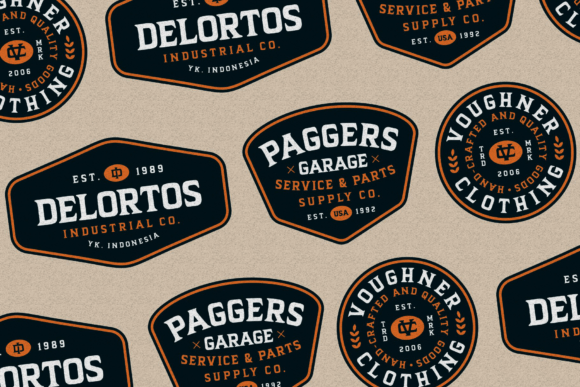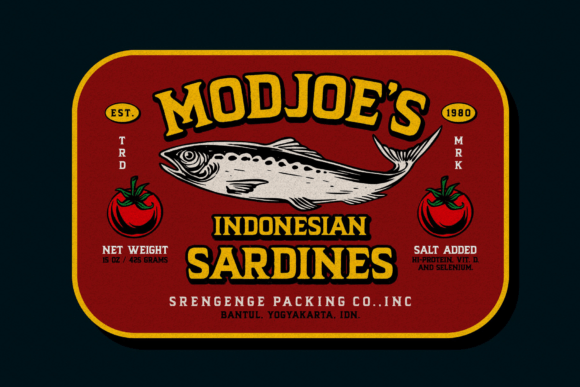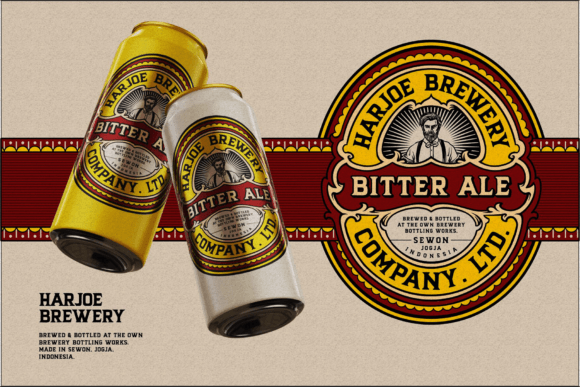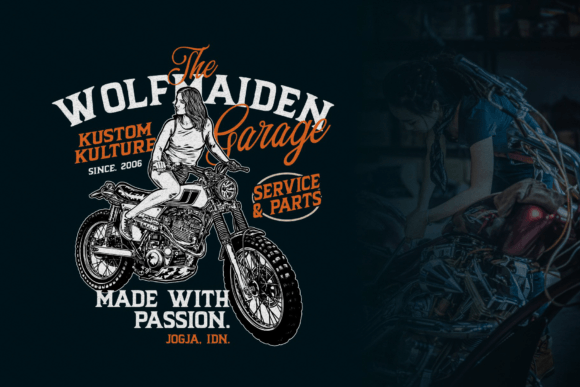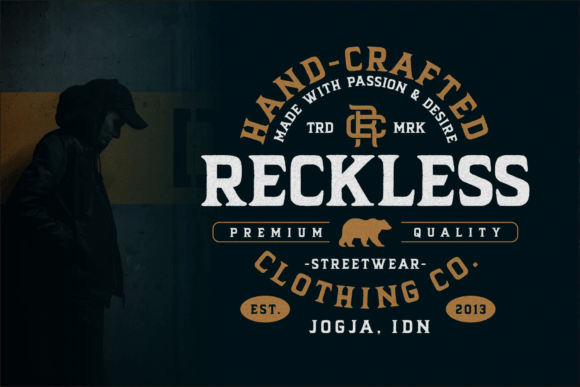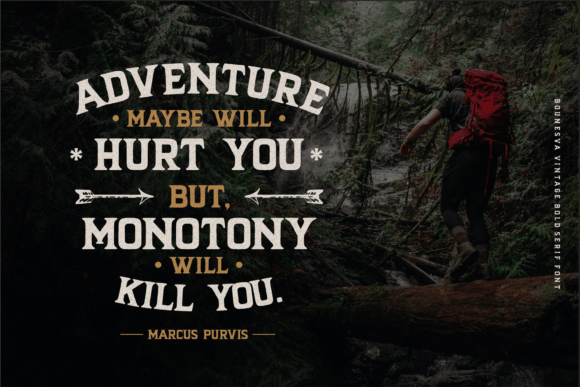
Get Ready to Rev Up Your Designs with the Bounesva Font
You know that feeling when a new font just clicks with your creative vision? For designers and makers, finding the perfect font can be the spark that sets a project ablaze. Whether you’re crafting a bold Instagram post or designing a custom sign for a vintage motorcycle shop, the right font can elevate your work from good to great.
Enter the Bounesva Font, a striking all-caps serif font that’s tailor-made for motorcycle and vintage-related designs. But its versatility doesn’t stop there – this font is also perfect for headlines, short texts, and modern designs. With the Bounesva Font, you’ll have the power to turn any creative idea into a stunning work of art.
- Unique Characteristics: The font features a unique blend of traditional and modern elements, with intricate details and ornate flourishes that set it apart from other fonts.
Bounesva Font Review
Overall, I think the Bounesva font has some great qualities that make it suitable for certain projects. ✨ The font’s unique combination of modern and vintage elements gives it a distinctive look that can add a touch of elegance to designs. The font’s versatility also makes it a good choice for a wide range of applications, from editorial to advertising.
Here are some specific strengths of the Bounesva font:
- ✨ Unique and stylish design that sets it apart from other fonts
- ✨ Highly versatile and suitable for a variety of projects
- ✨ Well-suited for headings and titles due to its bold and eye-catching nature
- ⚠️ The font may not be suitable for body text due to its bold and ornate nature, which can be difficult to read in large quantities
- ⚠️ The font’s vintage elements may not appeal to everyone, and some people may find it too over-the-top or distracting
Overall, I think the Bounesva font is a great choice for projects where you want to add a touch of sophistication and elegance. However, it’s not a good fit for every project, and you should carefully consider the context and audience before using it.
For the best results, use Bounesva Font in headings and titles to add a touch of elegance to your design.
Use Bounesva Font to add a touch of sophistication to your graphics and illustrations.
Use Bounesva Font to add a touch of elegance to your presentations and documents.
Some common use cases for Bounesva Font include:
- Event branding and signage
For the best results, use Bounesva Font in combination with other elegant fonts and design elements.